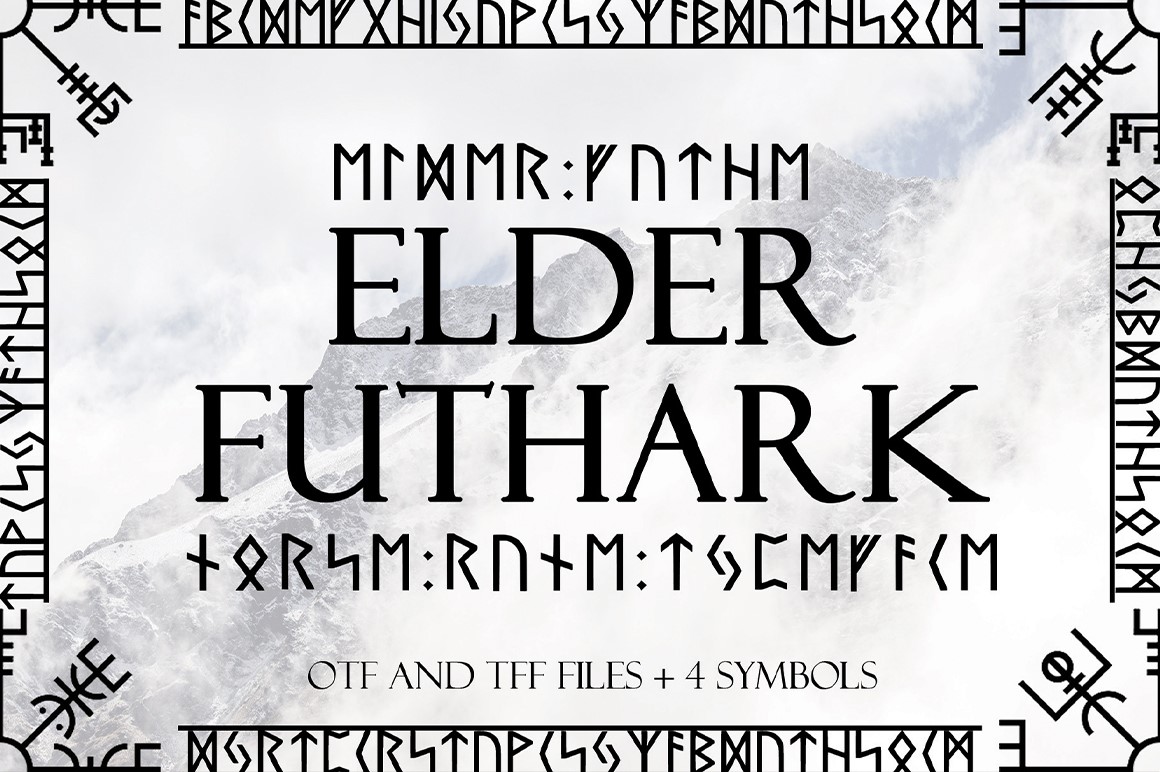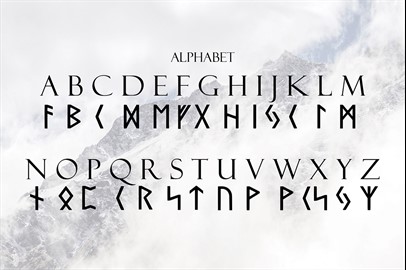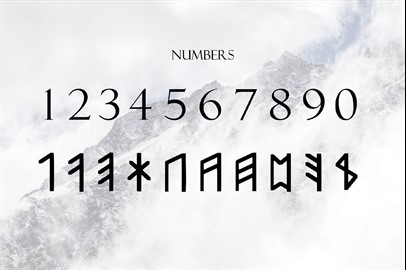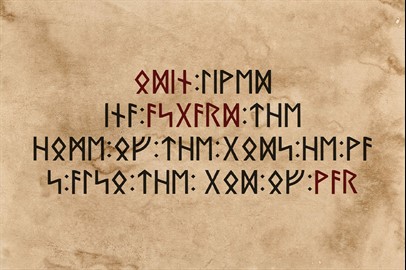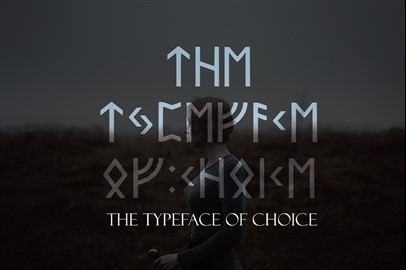
Norse Elder Futhark Typeface
Elder Futhark typeface
is a unique font based on the oldest form of the runic alphabets. It was a writing system used by Germanic tribes. Runic inscriptions are found on artifacts, including jewelry, amulets, tools, weapons, and, of course, runestones, from the 2nd to the 8th centuries. This typeface is perfect for logos, monograms, titles, and posters. The typeface acts as a translator and can add a lot of character to a project.
I have created a much cleaner version of the typeface and the symbols are now very accurate in terms of it matching the Roman Alphabet and I have added 4 symbols as a bonus.
Although Elder Futhark doesn't seem to have symbols for numbers, I have added a set of rune numbers based off another form of the runic alphabet. This will now give you more choice and options when using the typeface. Enjoy!
I have now added an outline version of the typeface for a bit more variety. Enjoy!